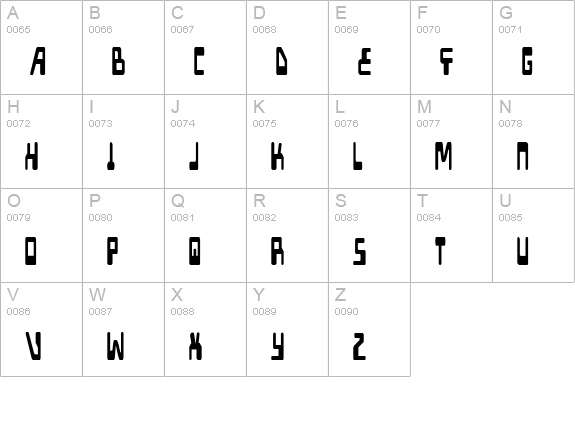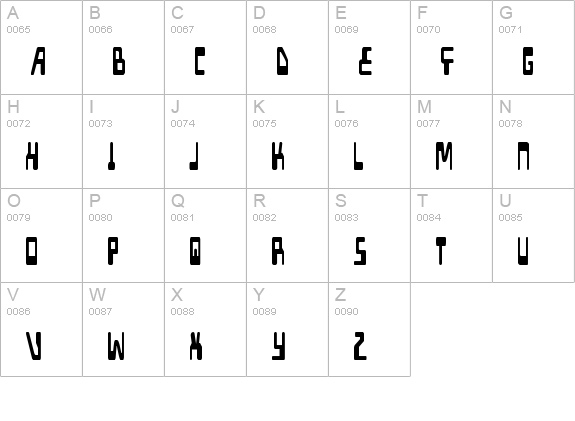
XPED Condensed Font Details
XPED Condensed is a distinctive, condensed-width variant in the XPED typeface family \xE2\x80\x94 well suited to design and typography projects.
XPED Condensed font is a sleek and modern typeface designed to make a bold statement in any project. With its clean lines and sharp edges, this font exudes a sense of professionalism and sophistication. Its condensed style allows for more text to be displayed in a limited space, making it perfect for headlines, titles, and other attention-grabbing elements. What's even better is that XPED Condensed font is available for free download at FontsMarket.com. Yes, you heard that right - for absolutely no cost, you can enhance your designs with this stylish and versatile font. Don't miss out on this fantastic opportunity to elevate your creations with XPED Condensed font - download it now and give your projects the edge they deserve.